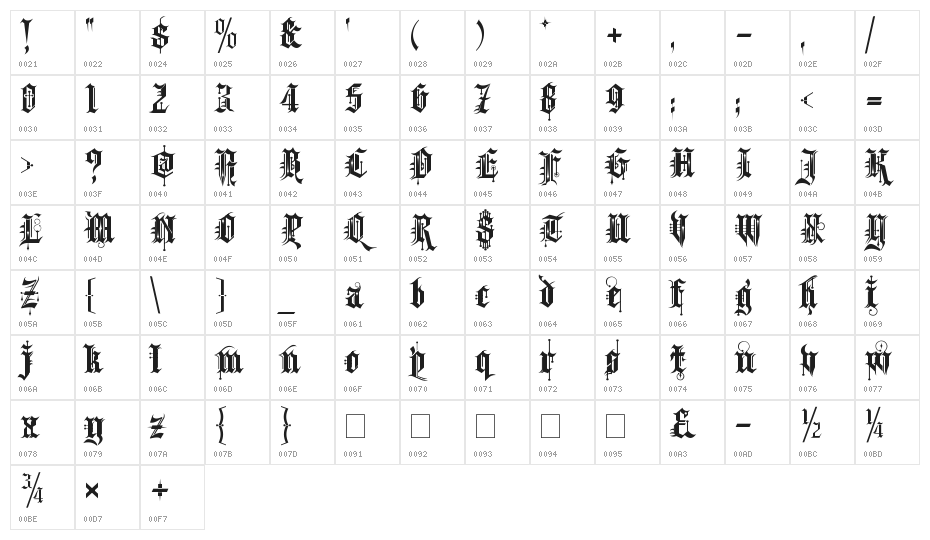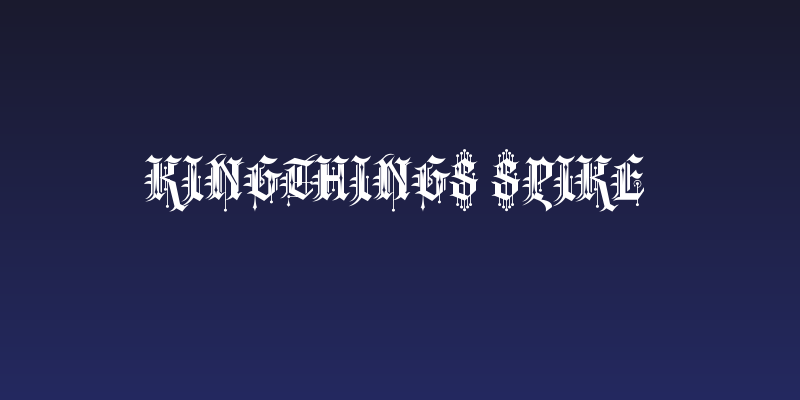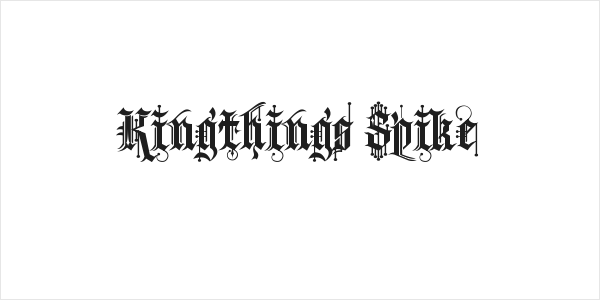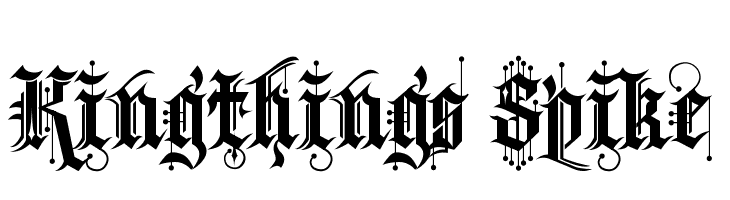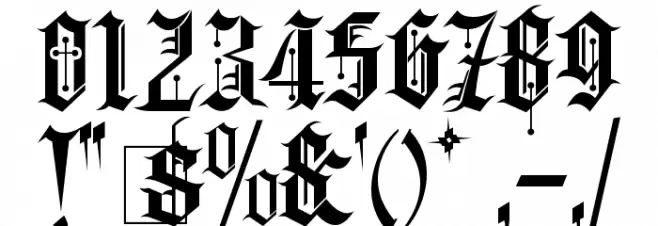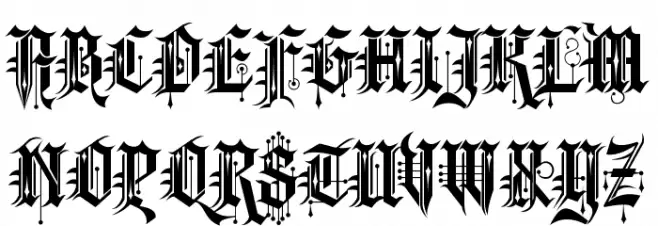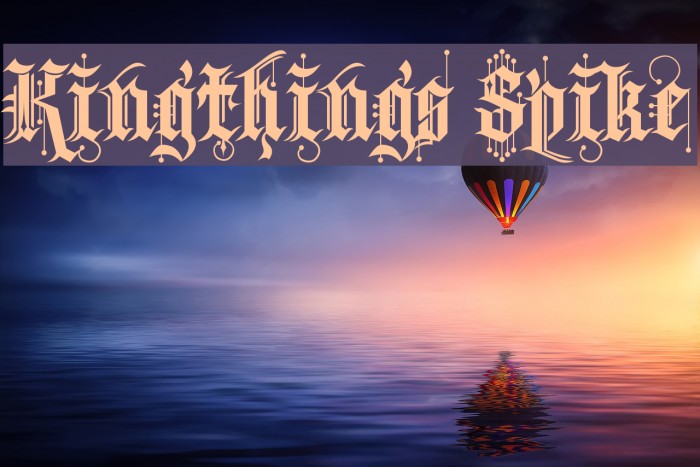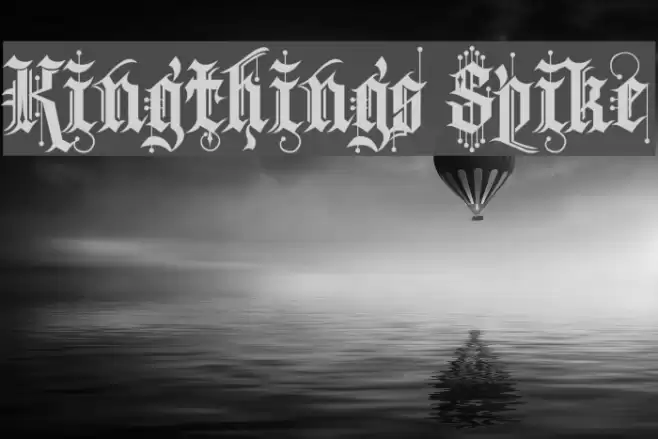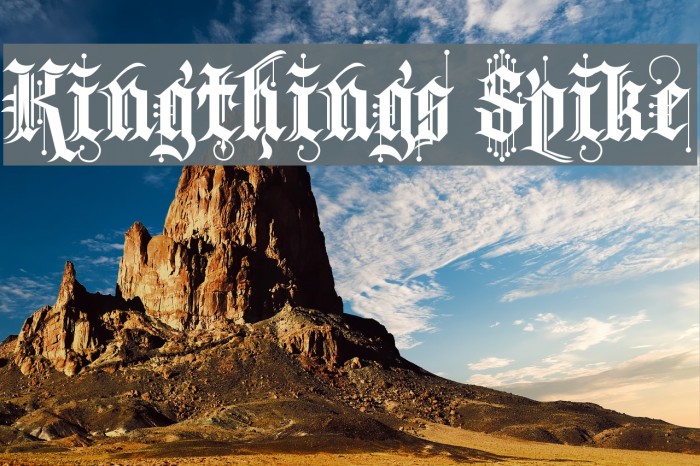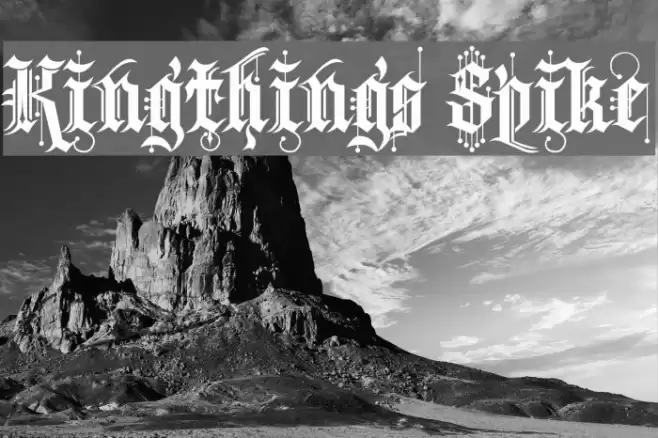
Kingthings Spike Font
| おすすめプロジェクト | Ideal for historical themed designs, gothic posters, book covers, or branding that requires a dramatic and traditional look. |